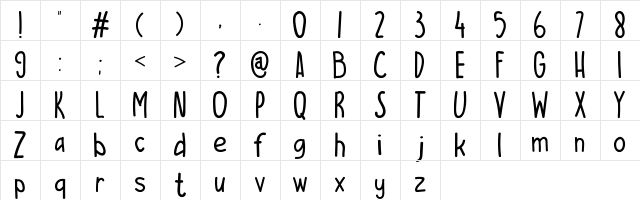
ES CAMPUR ENAK Regular
Design Context for ES CAMPUR ENAK Typeface
ES CAMPUR ENAK is a composed and adaptable typeface that performs quietly and consistently across a wide range of design contexts.